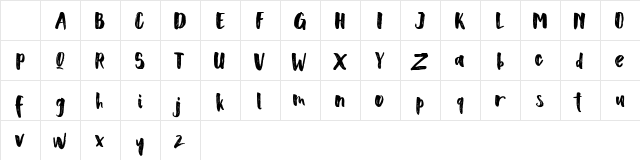
Scoothlane Sans Brush flows with the natural rhythm of handwritten lettering, making it ideal for designs that call for warmth and personal expression.
Font Pairing: Combine Scoothlane Sans Brush with a simple geometric sans for maximum contrast - the tension between flowing curves and clean structure is a classic typographic pairing.
Pro Tip: Use Scoothlane Sans Brush for short runs of text - names, titles, or taglines. Extended body copy in script faces tires the eye quickly.